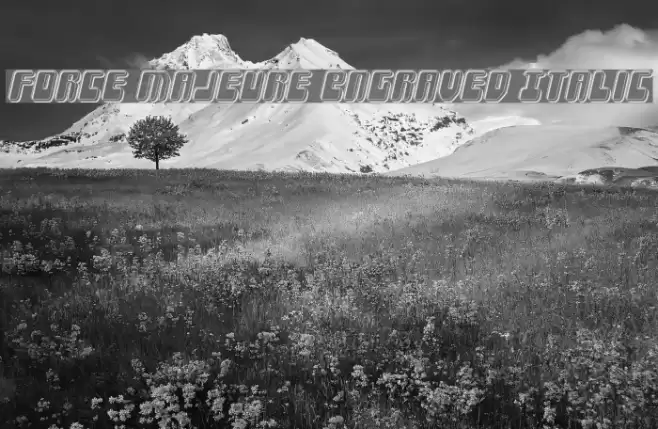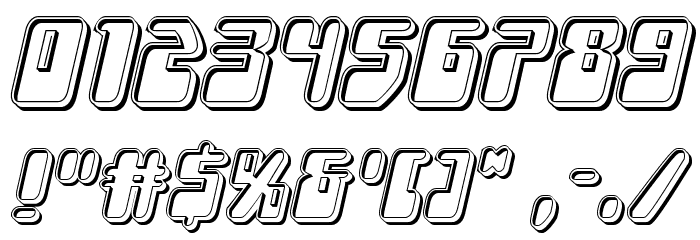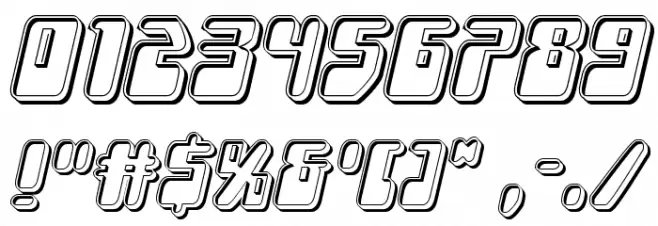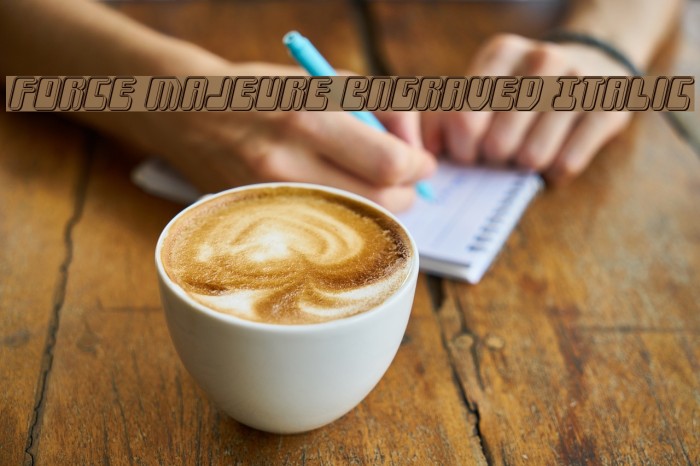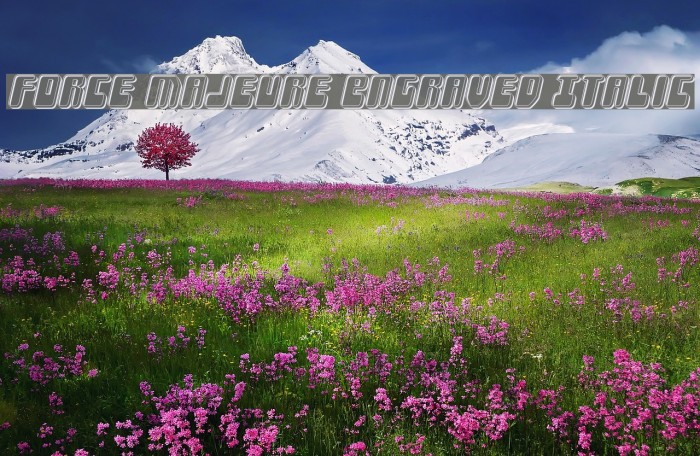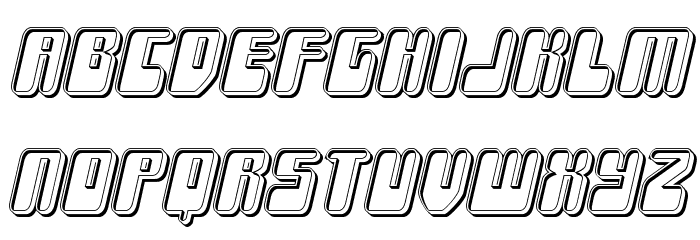
Force Majeure Engraved Italic Font
Force Majeure Engraved Italic Description
This font features a bold, three-dimensional engraved style with a distinct italic slant, giving it a dynamic and modern appearance. The characters are outlined with a thick border, creating a sense of depth and dimension. The uppercase and lowercase letters maintain a consistent geometric structure, with rounded edges that soften the overall look. The numerals and special characters follow the same design principles, ensuring uniformity across all glyphs. This font's unique style makes it stand out, ideal for projects that require a strong visual impact.
A bold, engraved italic font with a three-dimensional, modern look from Fancy fonts.
- Proposed Projects: Ideal for branding, poster design, video game graphics, and any project needing a bold, eye-catching typeface.